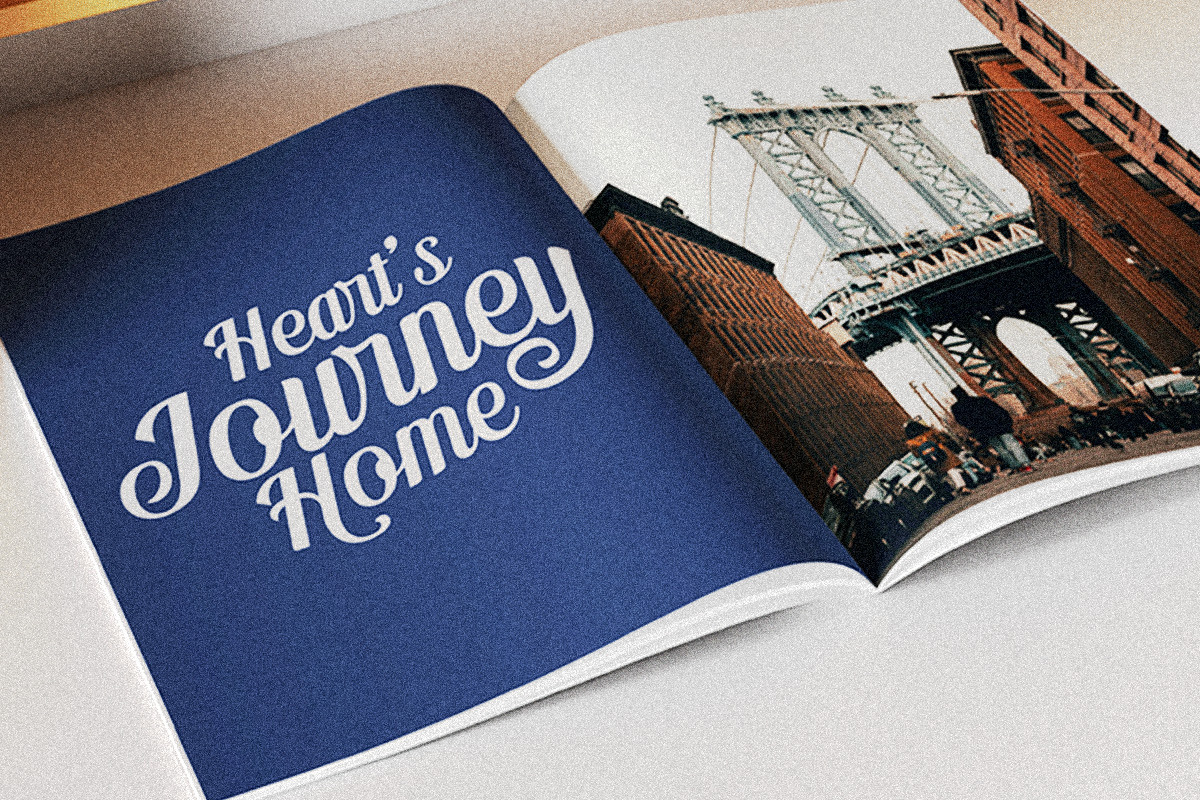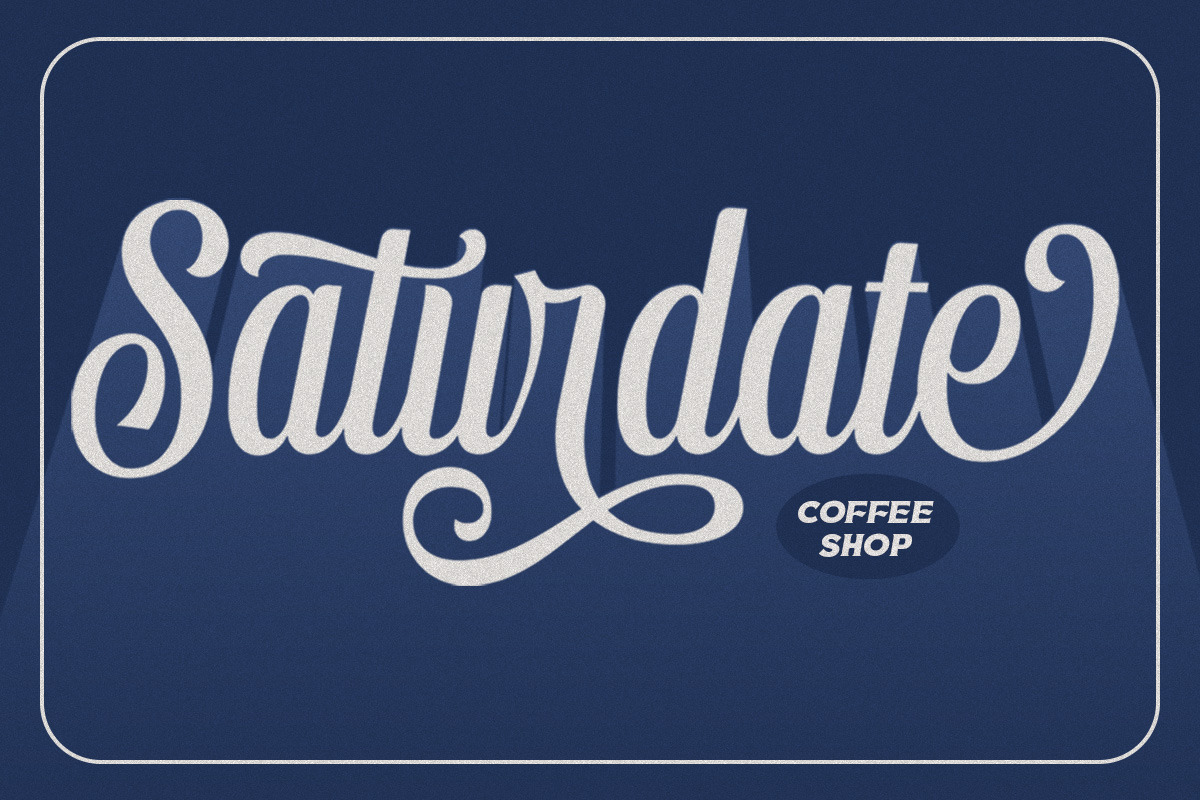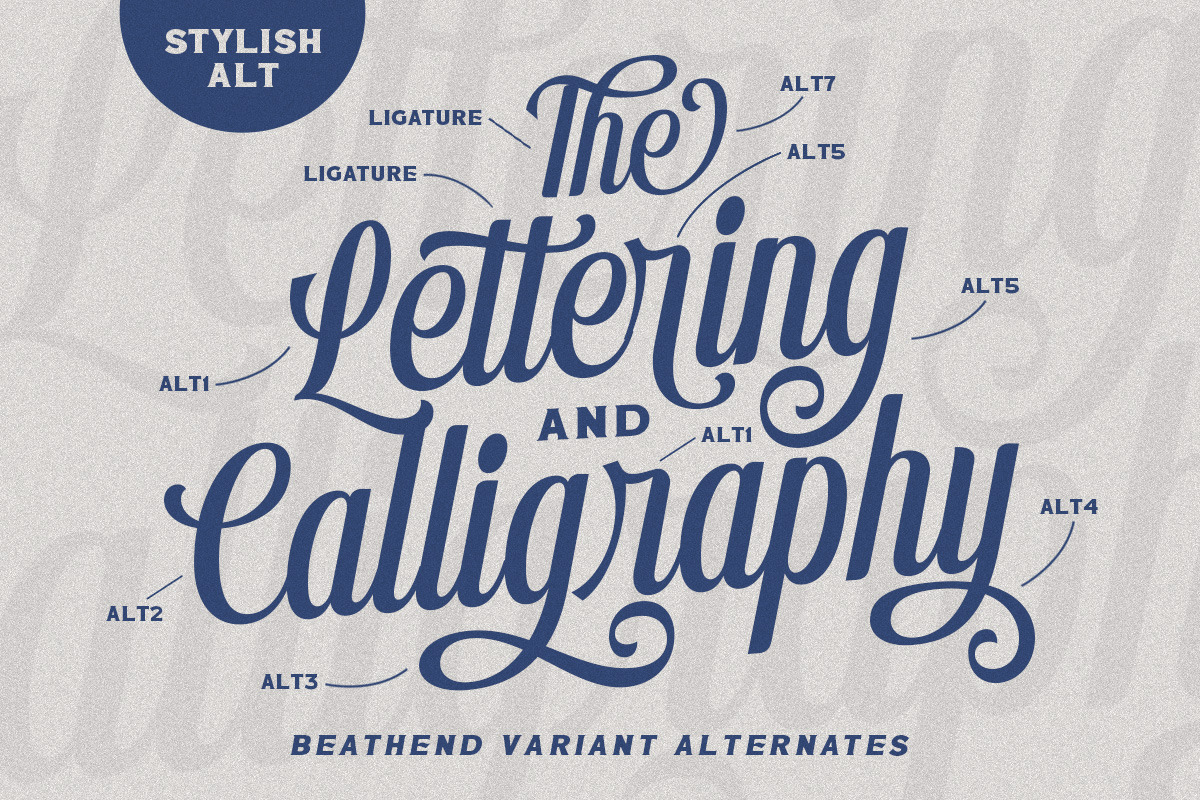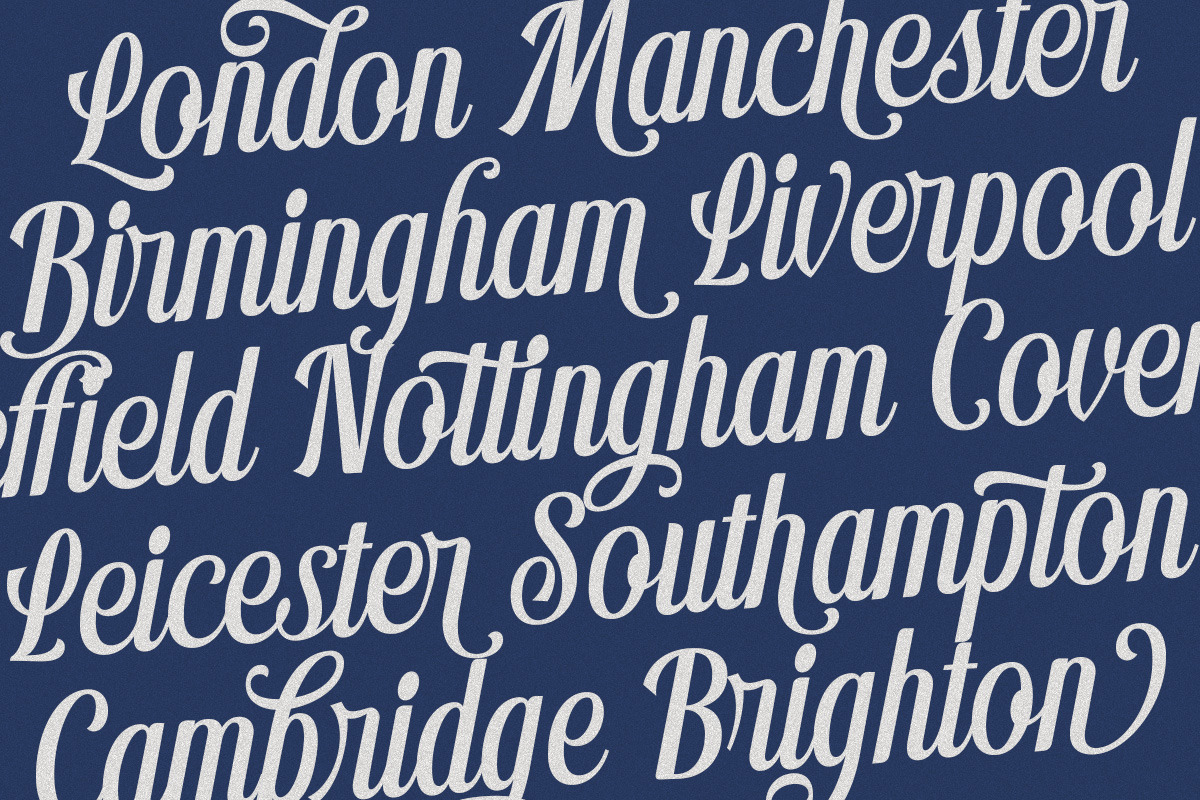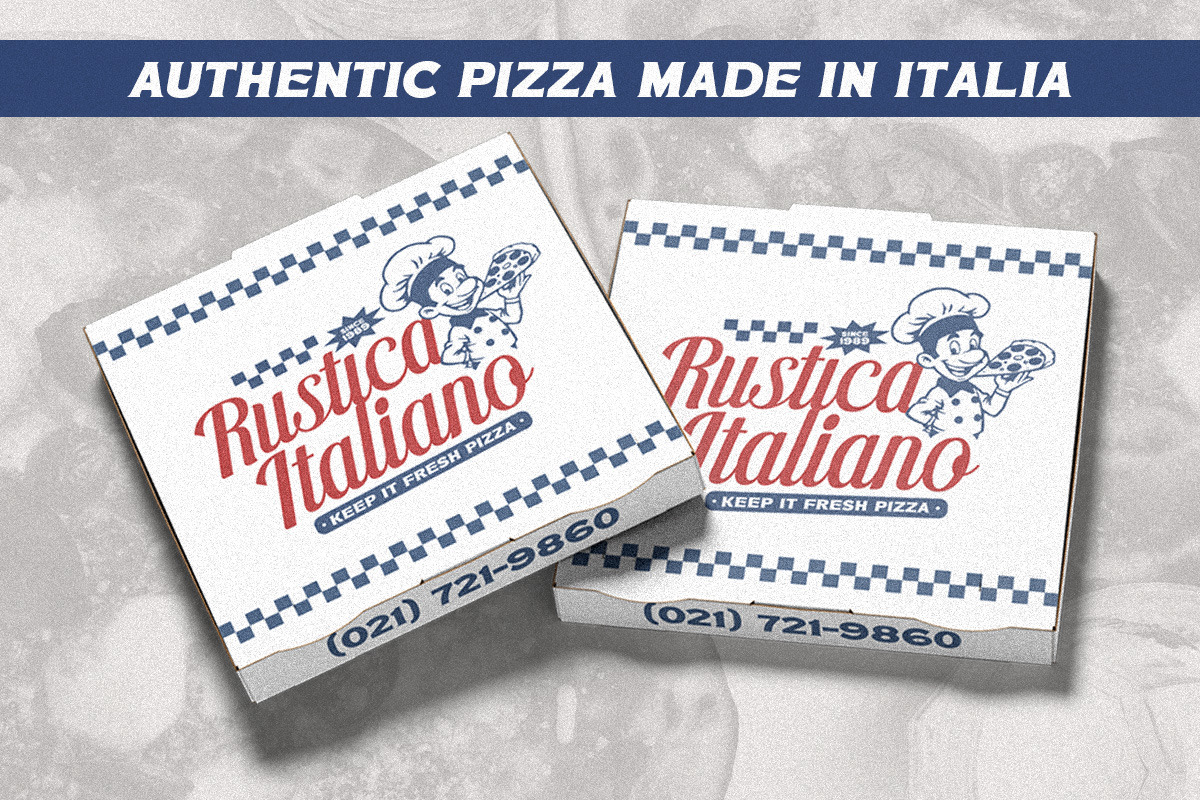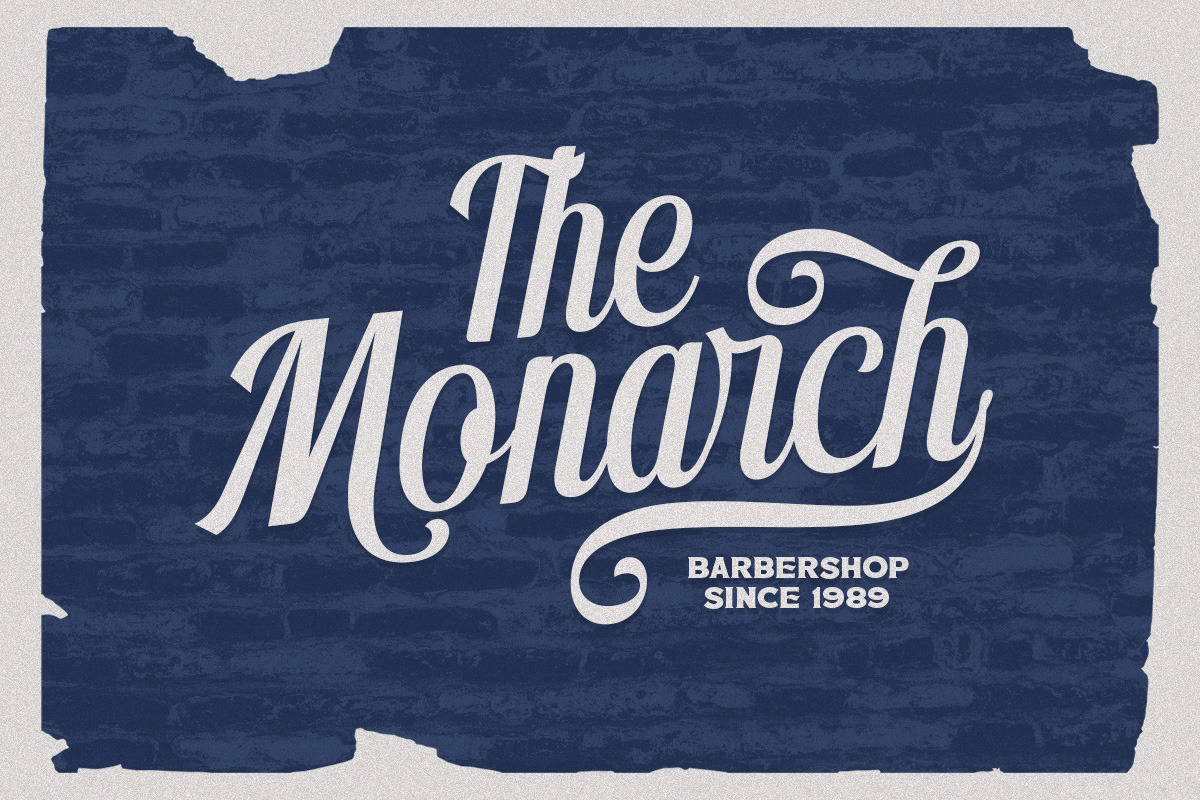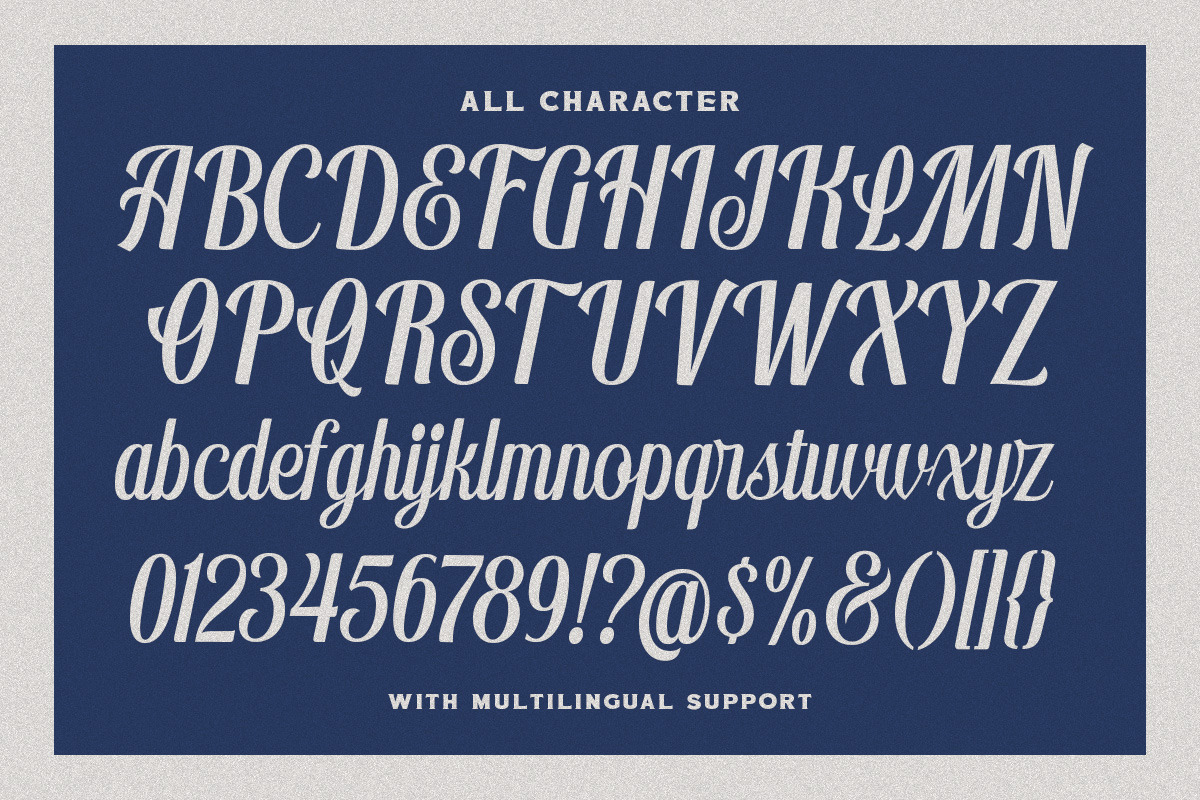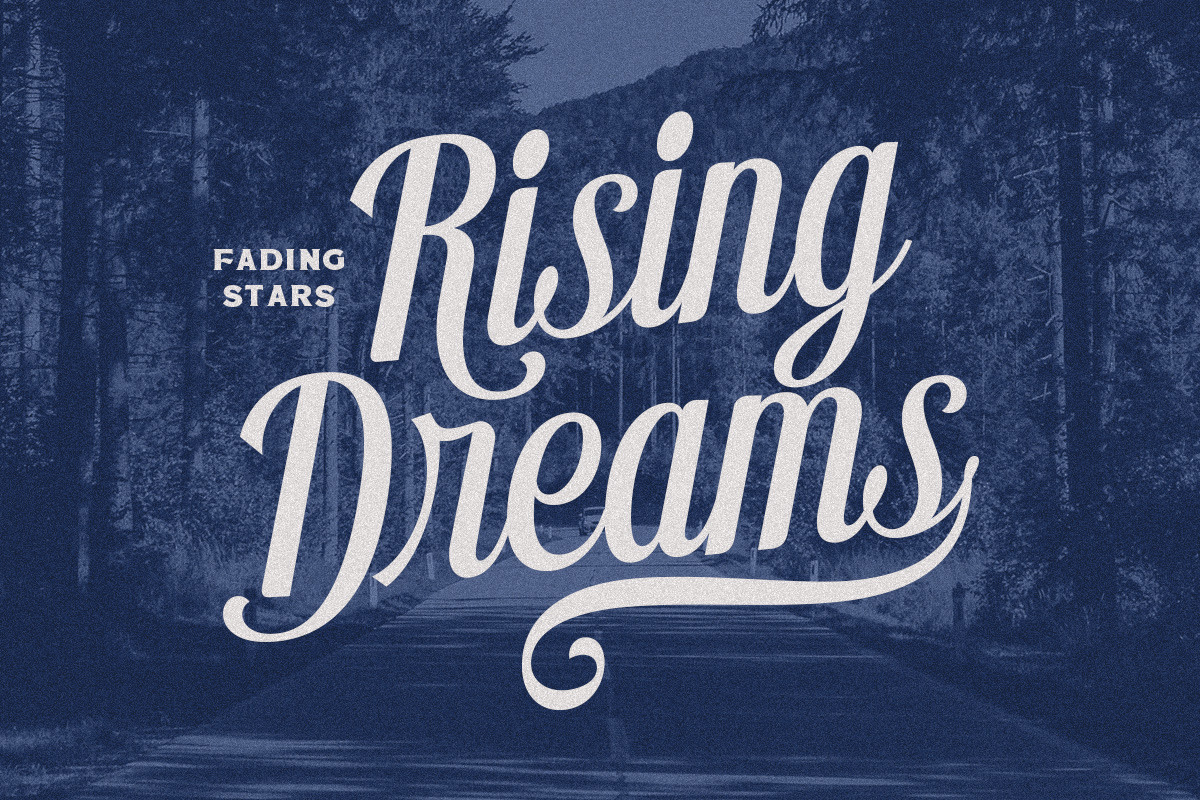
Beathend Display Script
Beathend is a sophisticated display script font designed to exude elegance and vintage charm. It combines smooth curves and bold strokes, making it ideal for branding, logos, packaging, and promotional materials. The font comes with alternates and ligatures, allowing for creative customization and versatility. Its handcrafted aesthetic adds a touch of authenticity, perfectly blending retro appeal with modern design sensibilities.